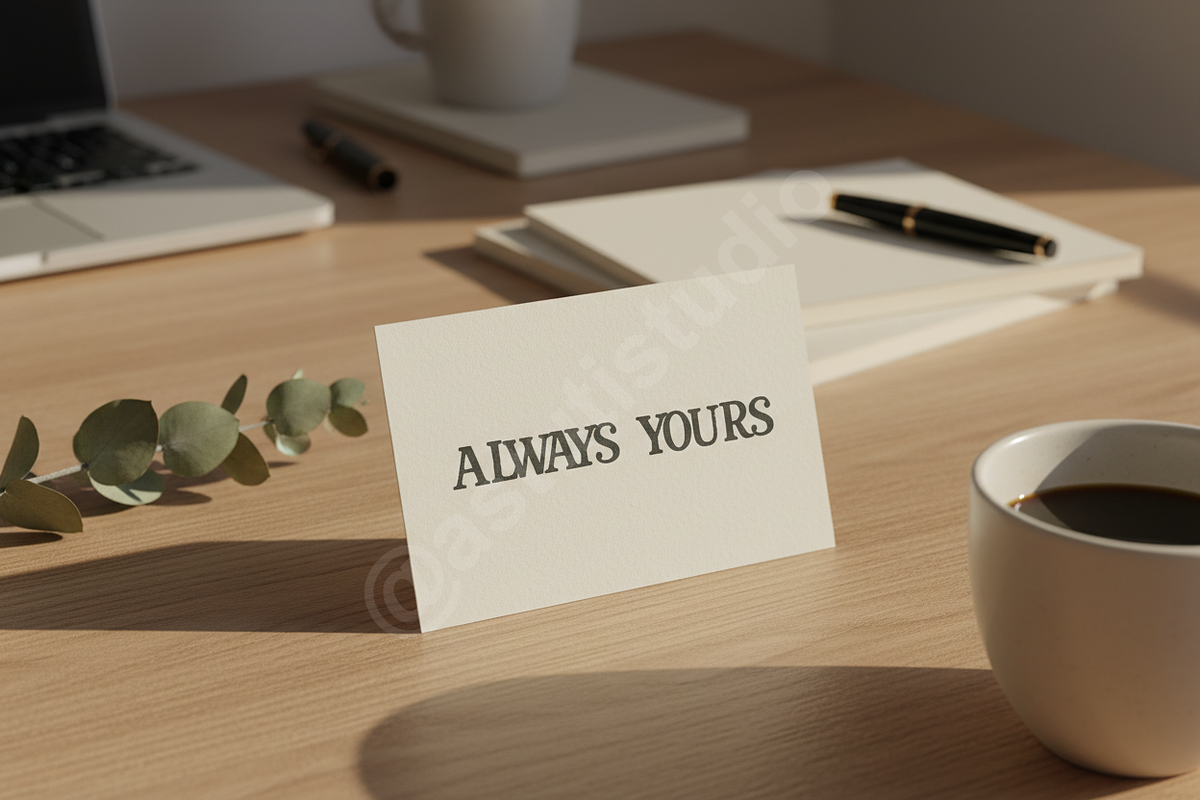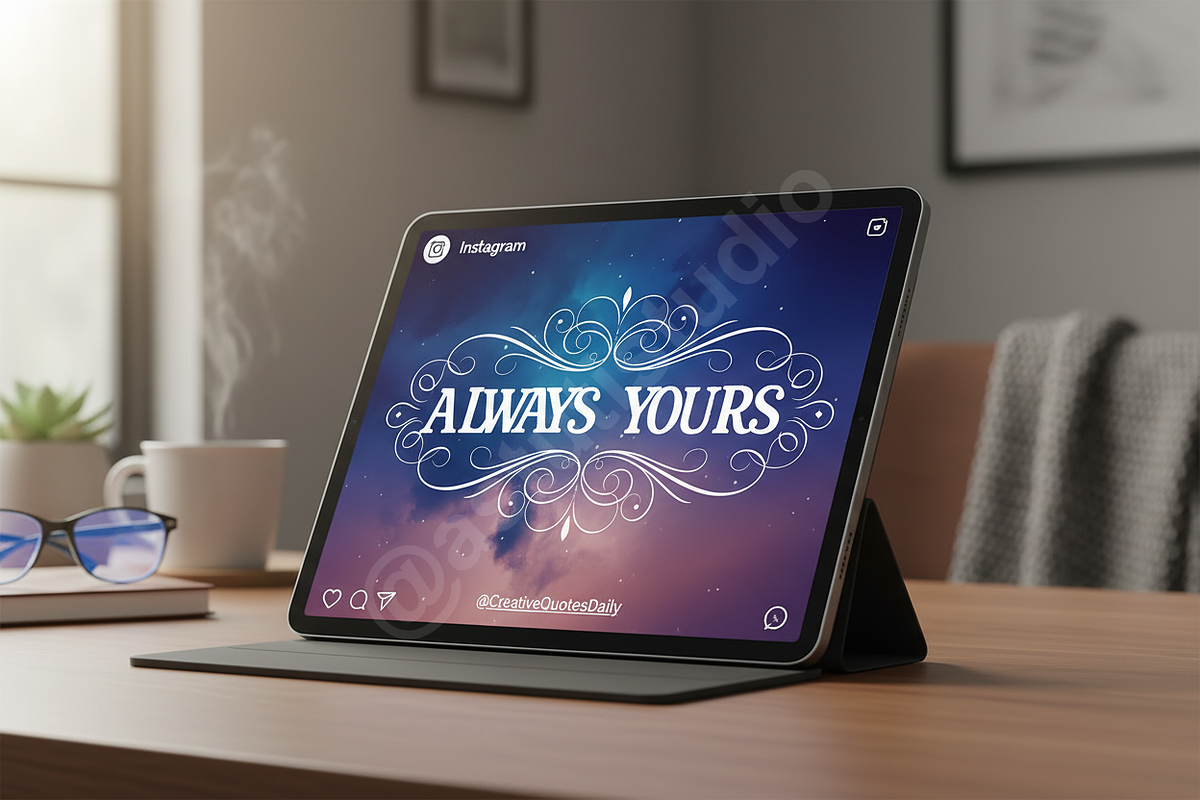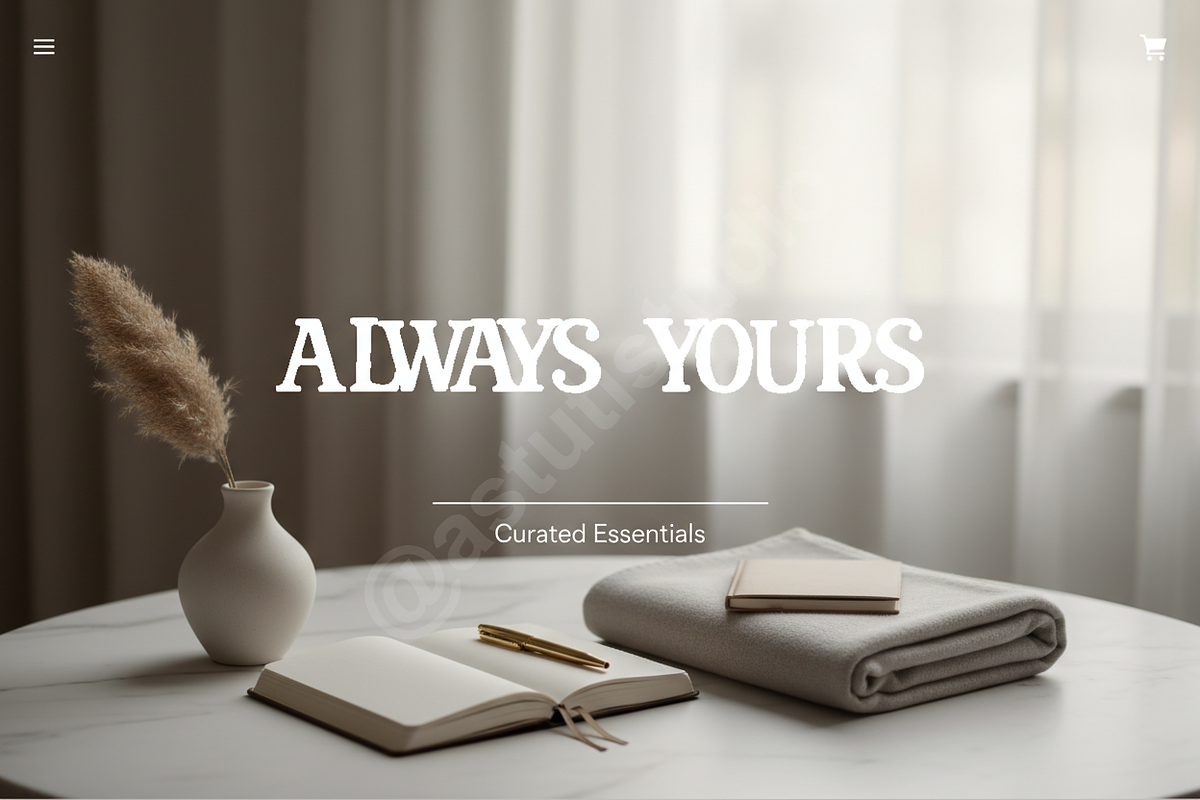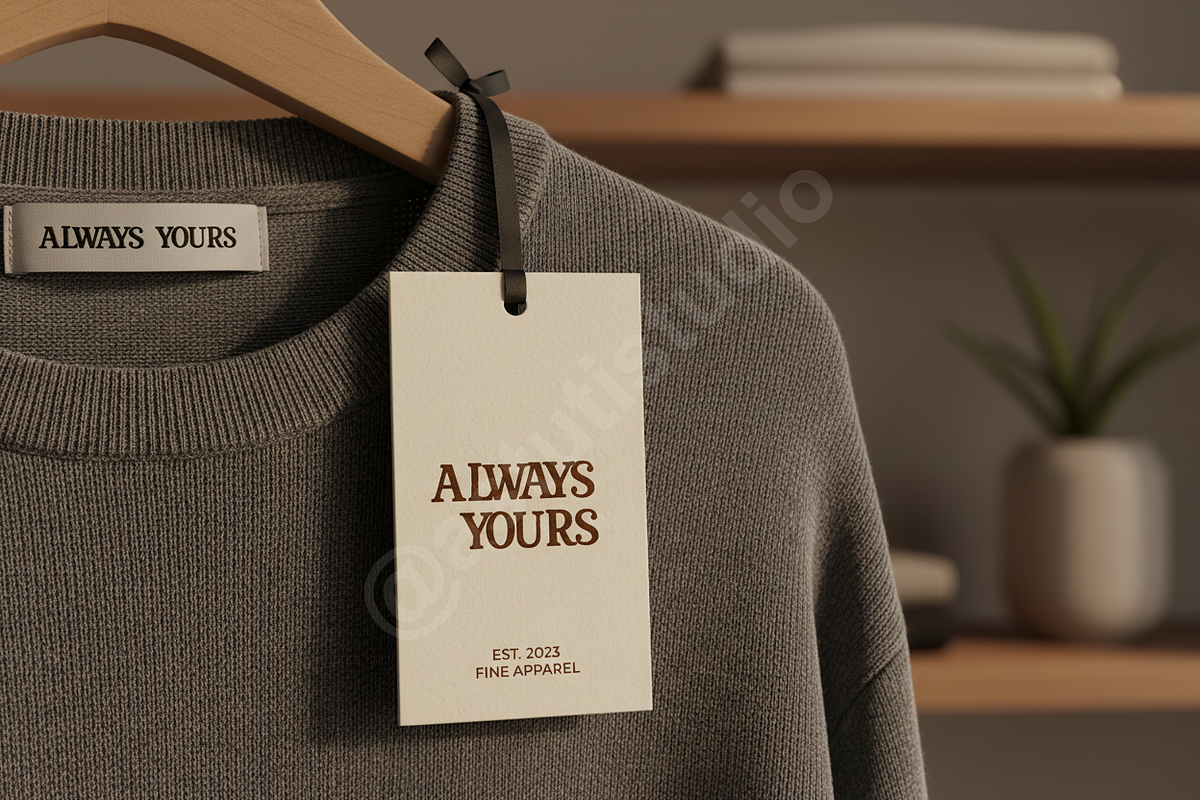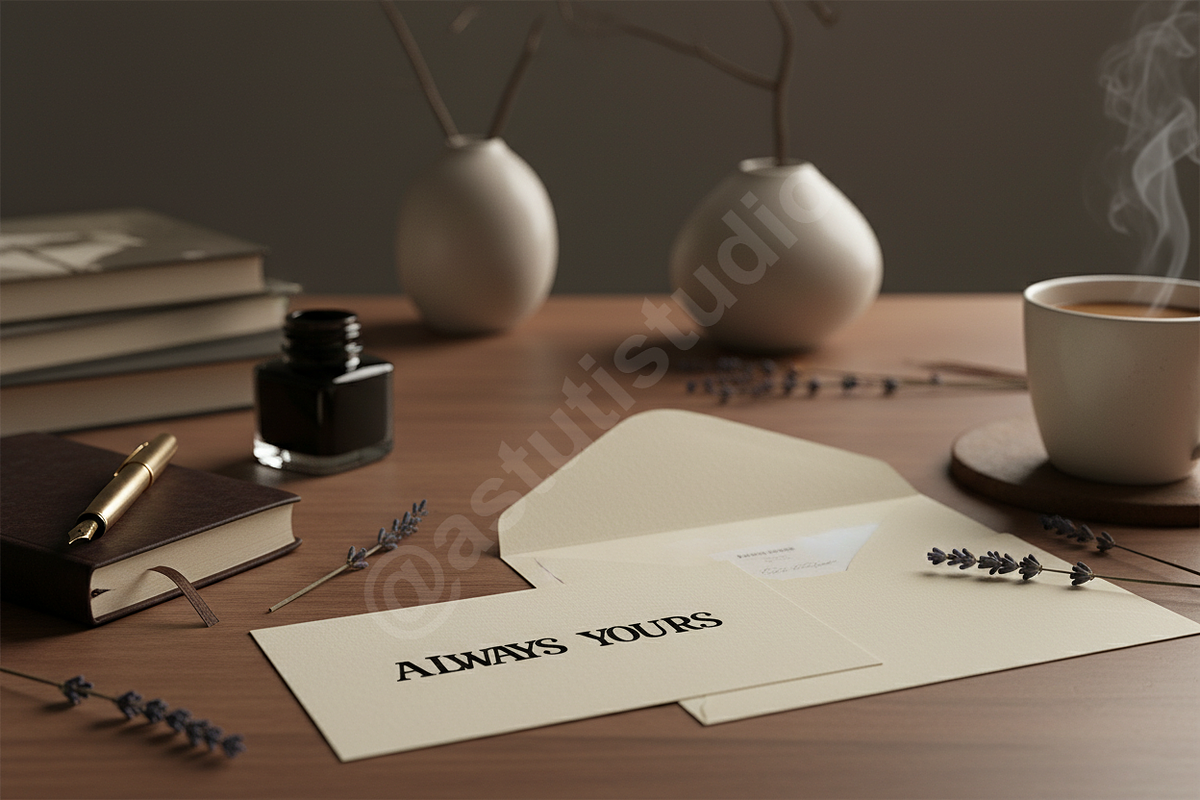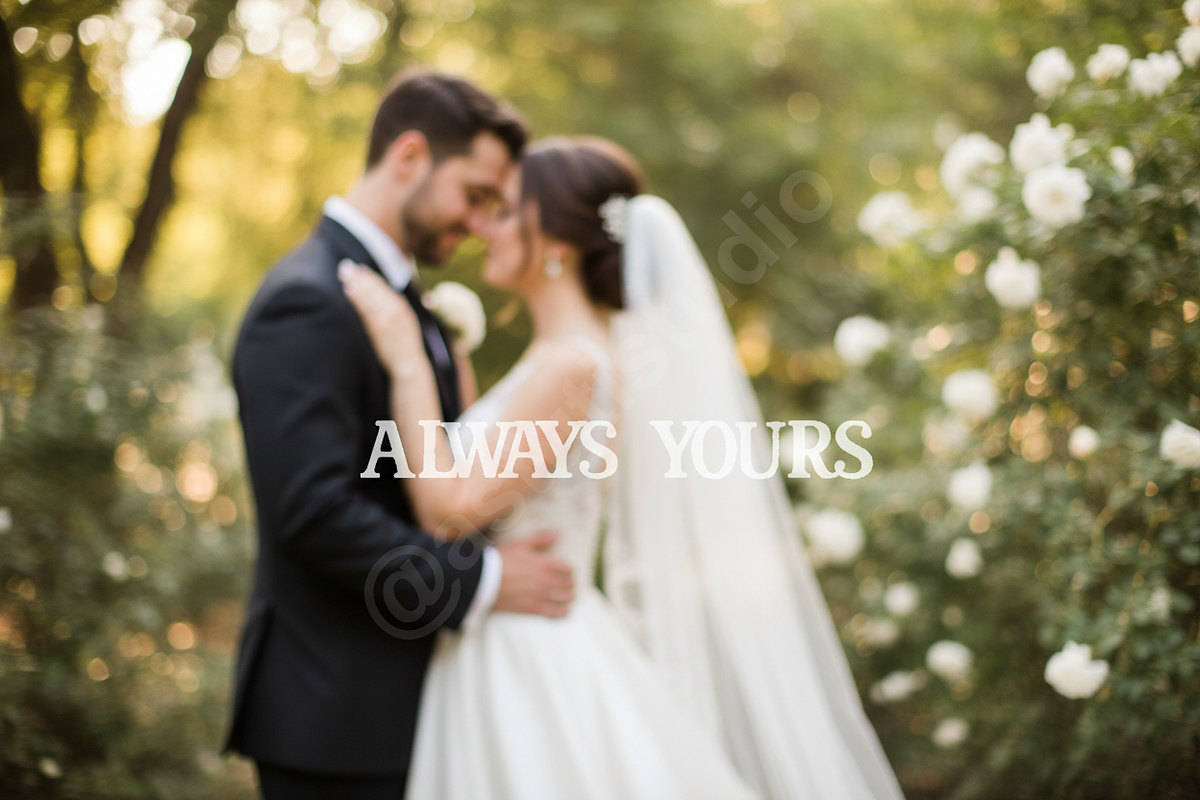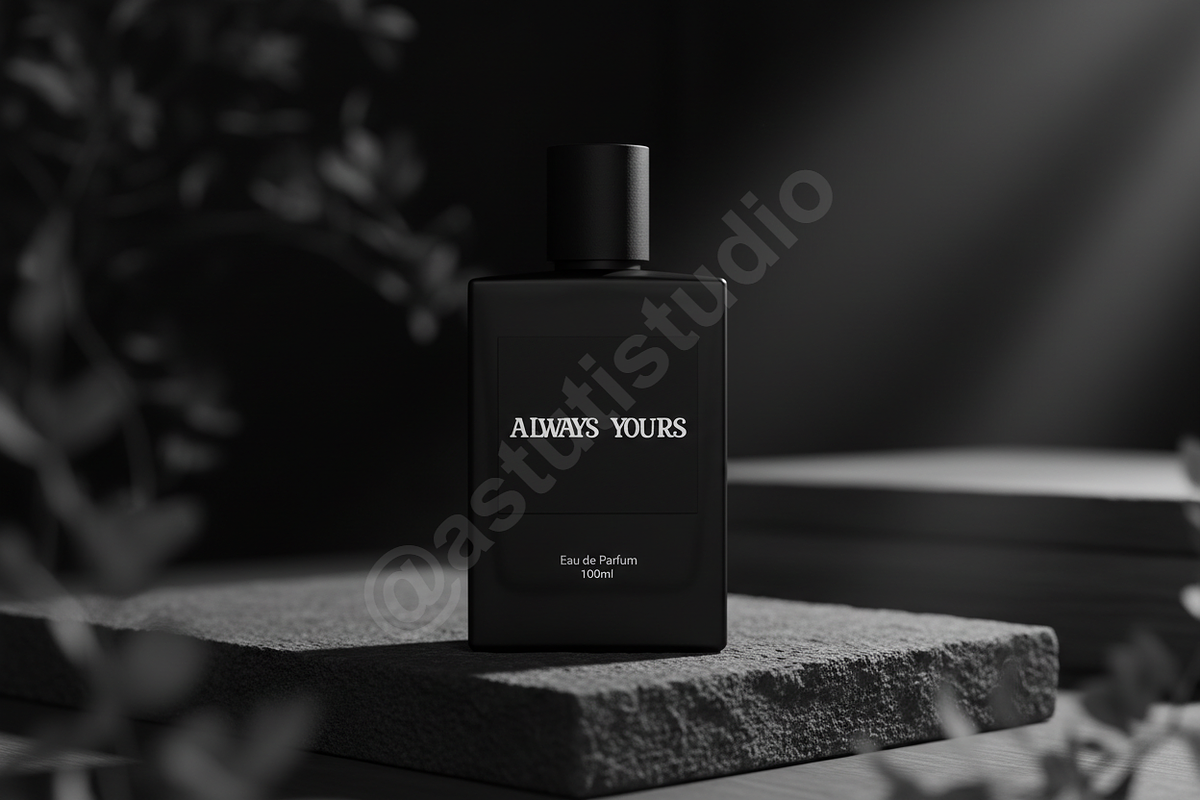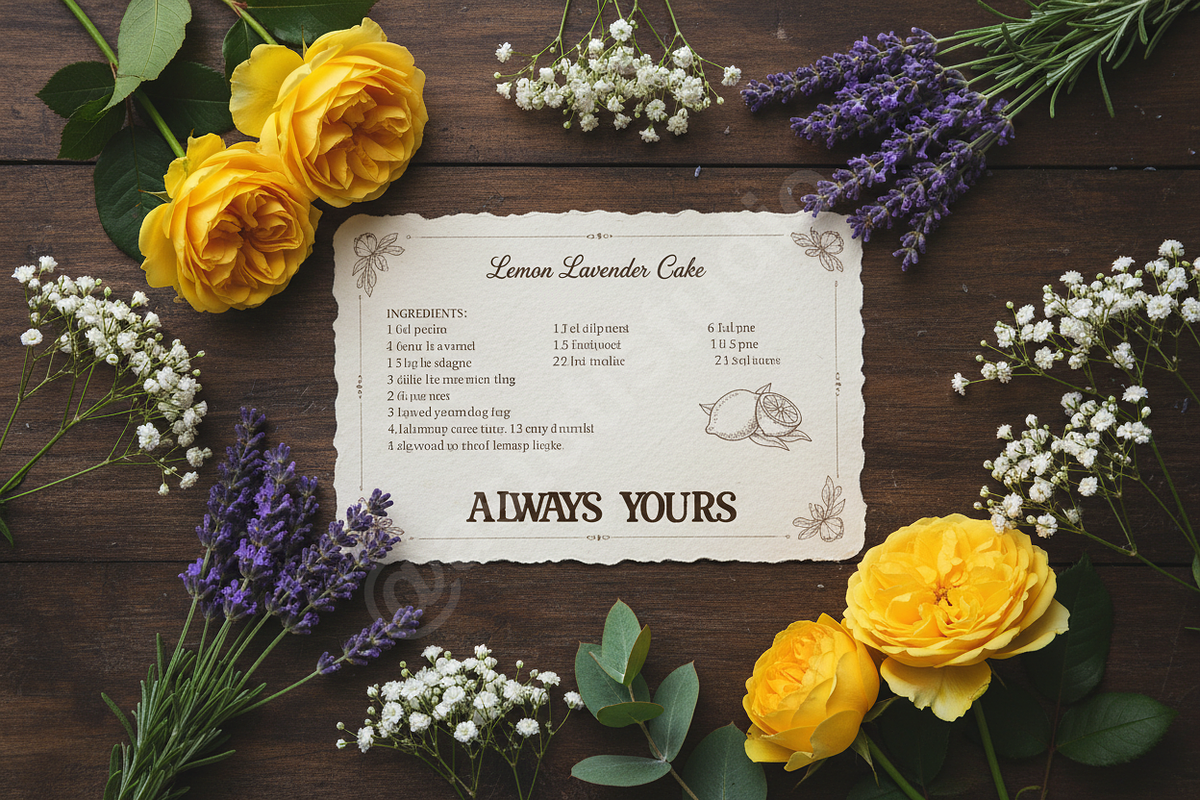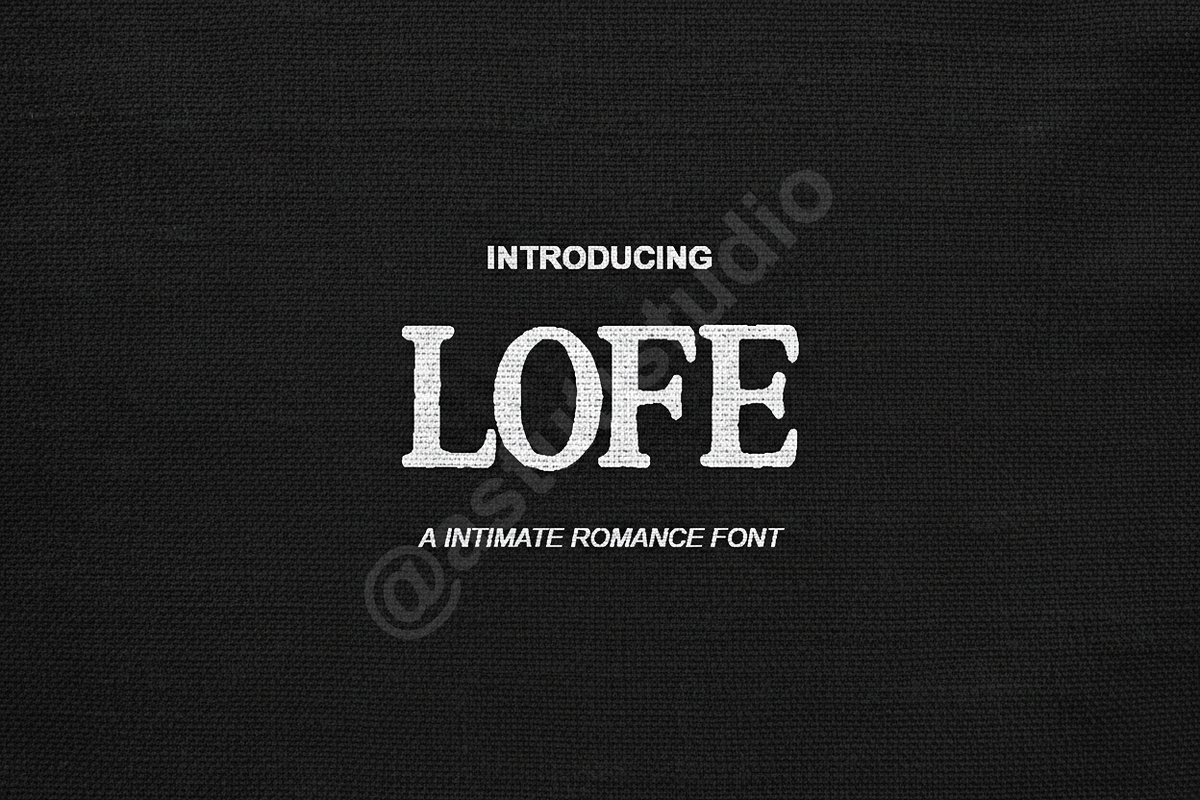
Lofe | Modern Luxury Serif Typeface
LOFE - THE EPITOME OF MODERN ELEGANCE
Lofe is a premium serif typeface meticulously crafted for high-end aesthetics. With its sleek proportions and sophisticated curves, Lofe brings a touch of timeless luxury to any creative project. It is the perfect choice for designers looking to elevate luxury branding, editorial layouts, and high-fashion social media content.
- Clean, high-contrast serif design
- Extensive set of unique ligatures for custom looks
- Full multilingual character support
- Precise kerning and balanced spacing
- Versatile for both large display and body text